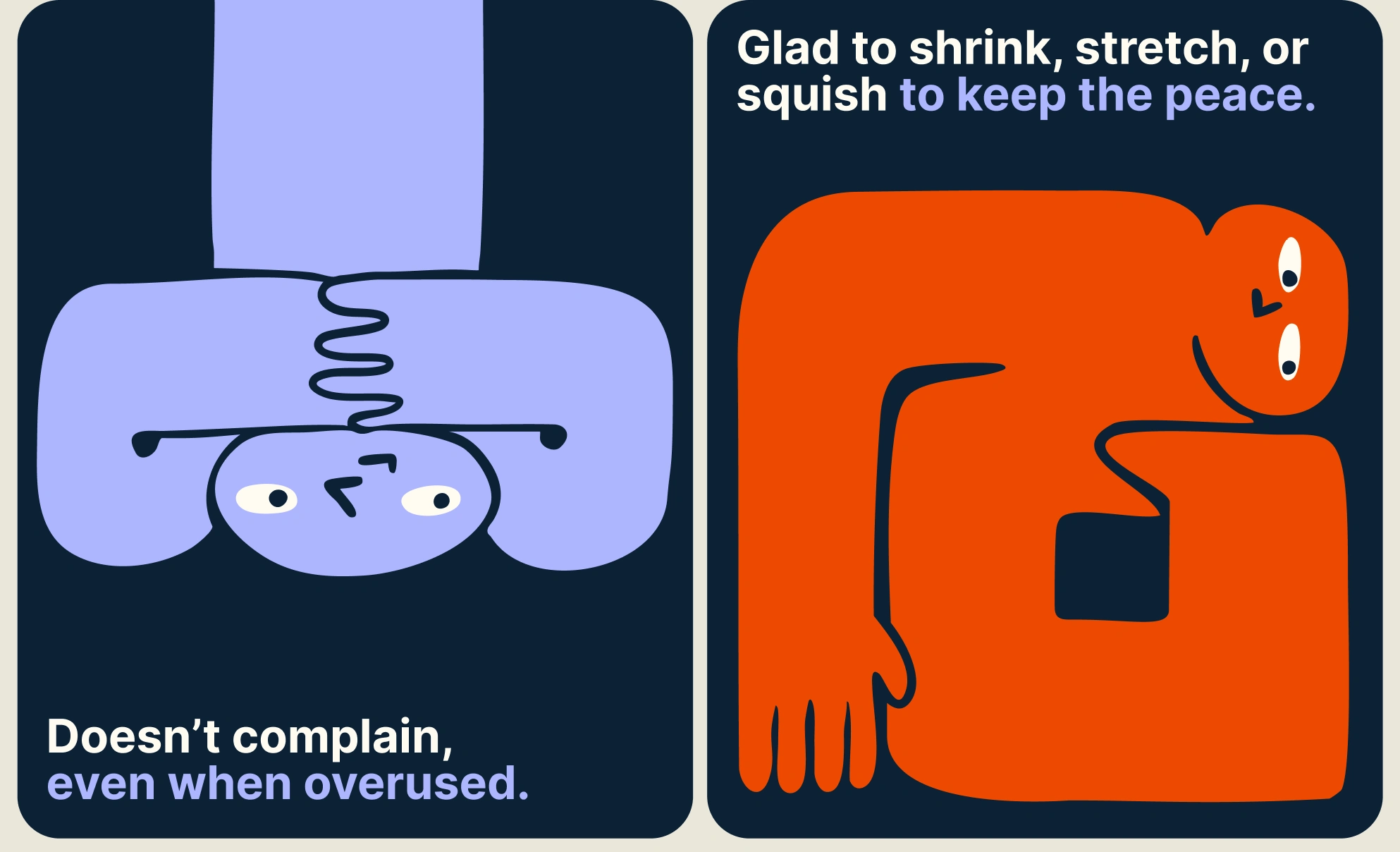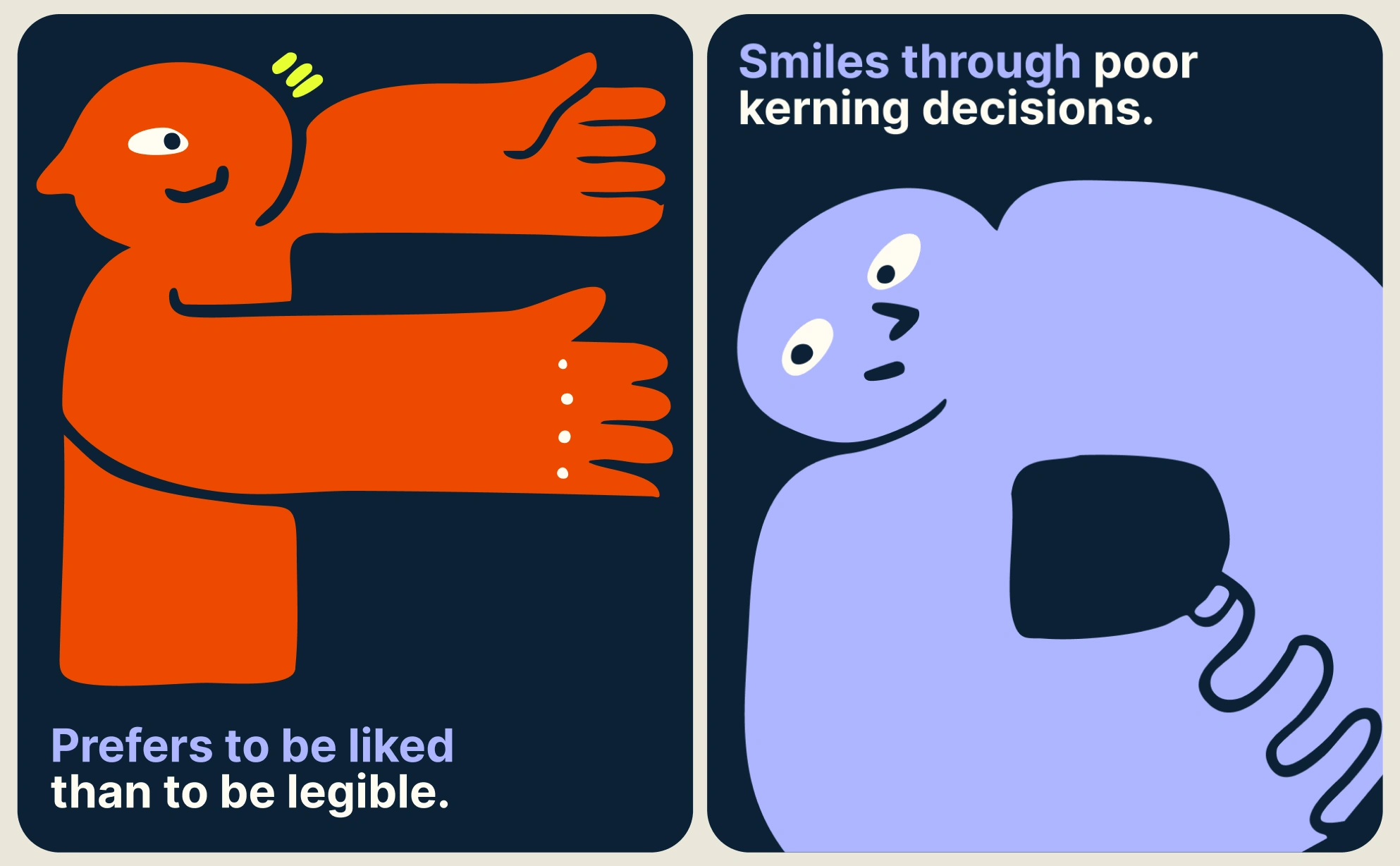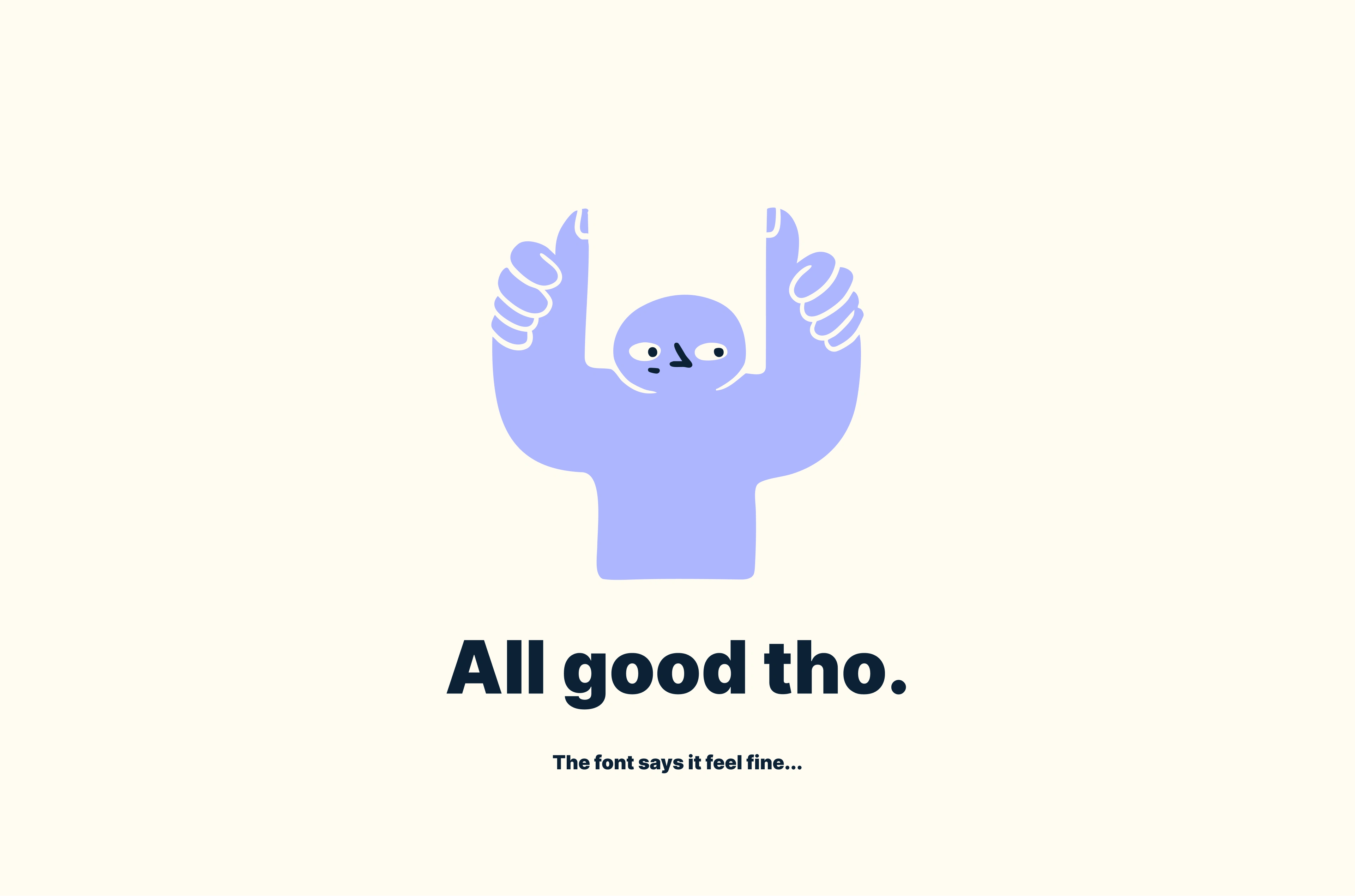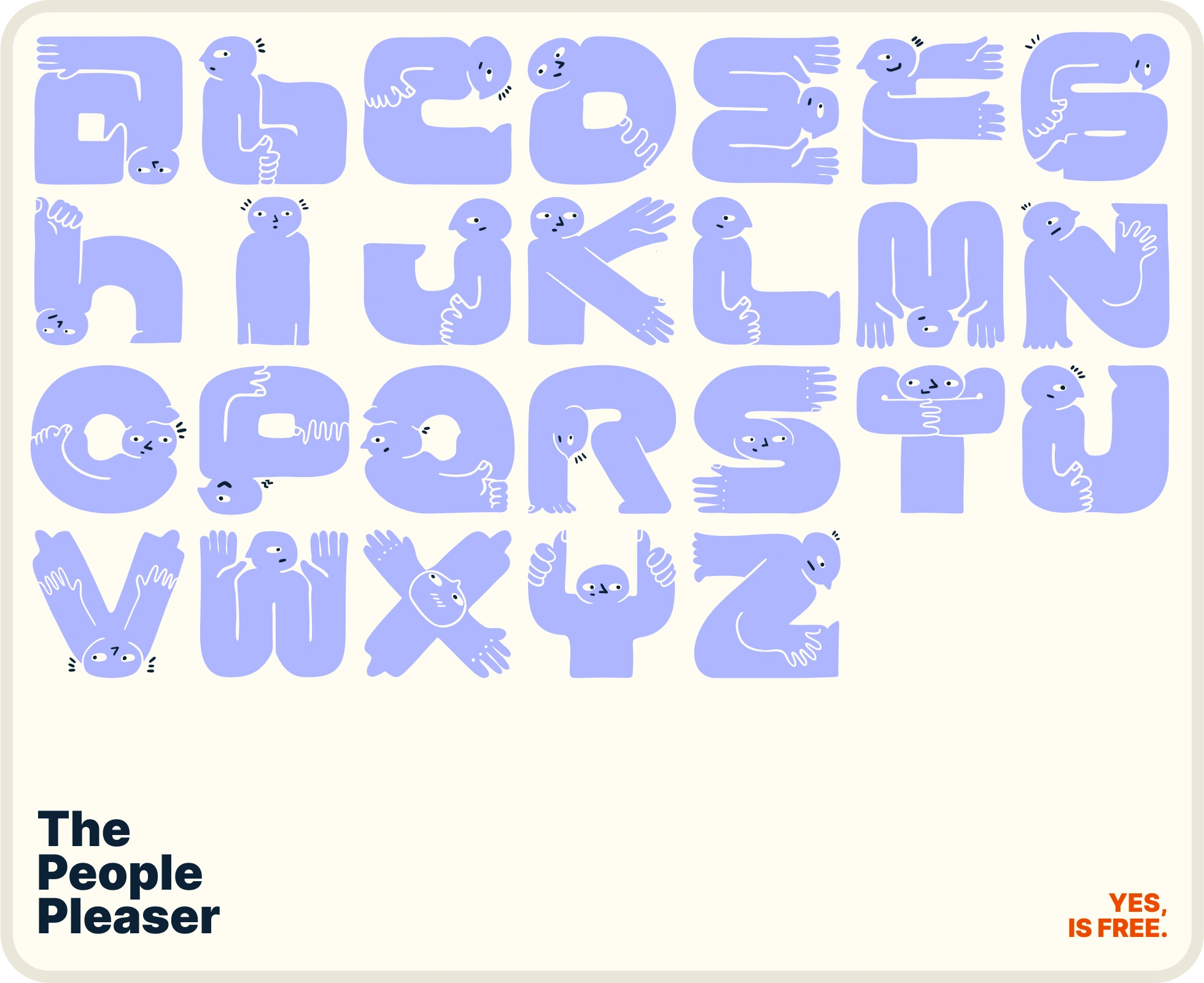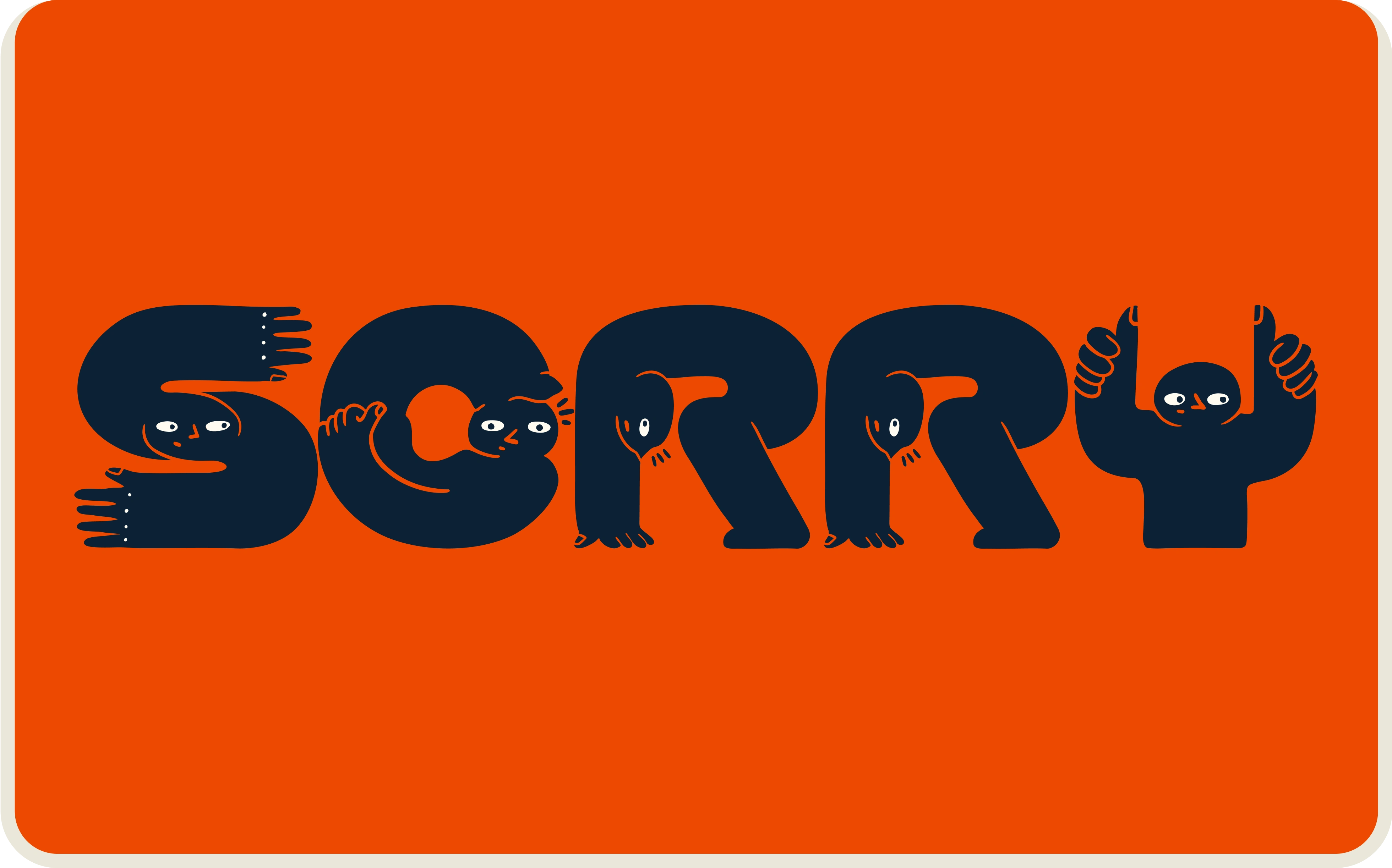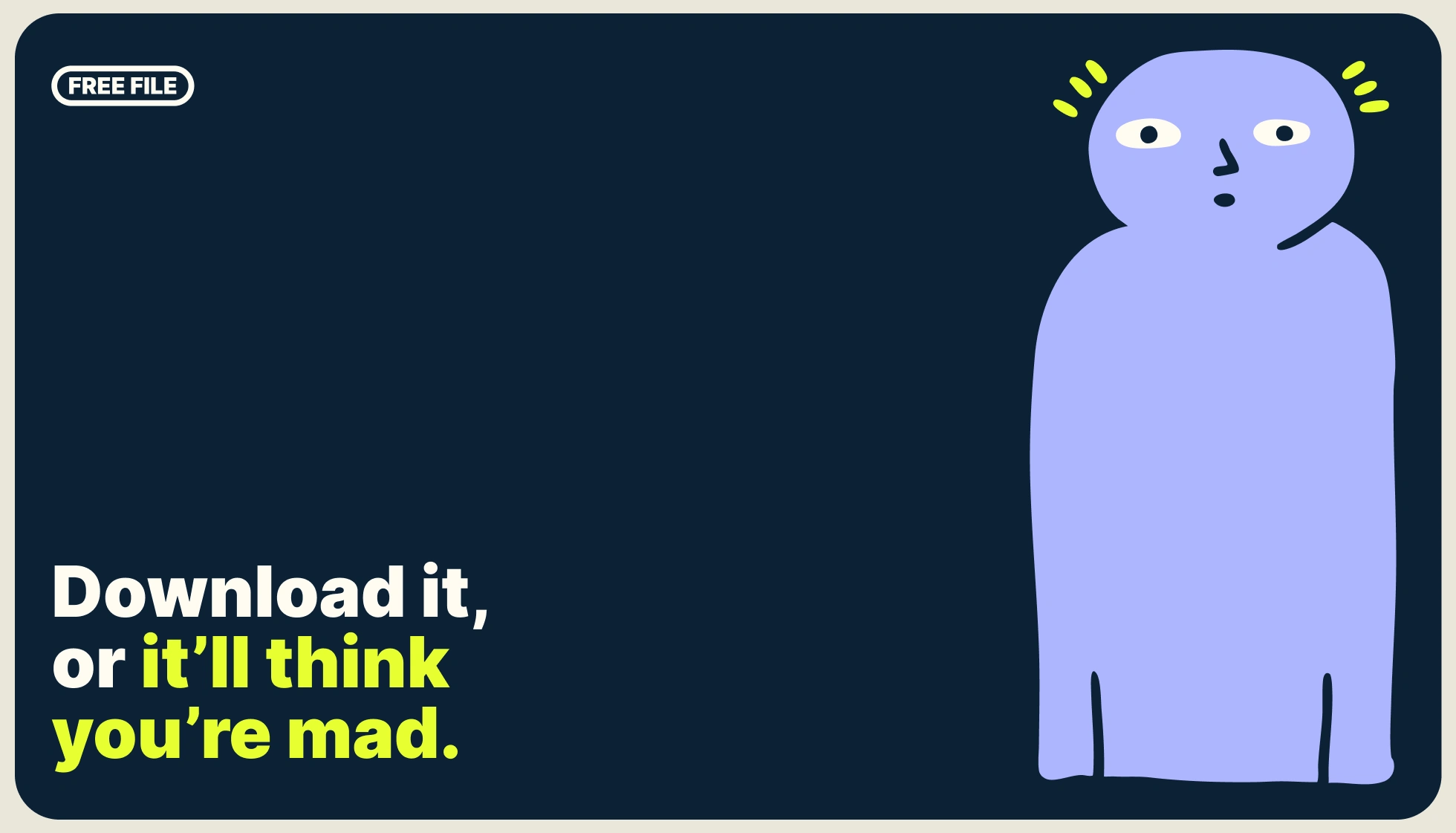
The People Pleaser Font [FREE]
The People Pleaser Font: A Twisted Tribute to Emotional Flexibility
In a world where burnout often leads to silence, Vic Rojo Studio chose to respond with a playful outburst of creativity. The People Pleaser Font is not just a typeface—it’s a visual diary of emotional exhaustion and quiet resilience, translated into illustrated letters that twist, bend, and contort in ways that feel all too familiar.
Born during a personal moment of overwhelm, the font reflects the deeply human impulse to keep saying “yes” even when what we really mean is “please help.” Rather than shutting down, Victoria Rojo turned her people-pleasing tendencies into something expressive, humorous, and raw. The result is a typeface that feels alive with emotion—each letter behaving like a character, trying its best to show up, look good, and be liked.
Some letters arch backward, others tie themselves into knots, and a few are just barely holding on. But they’re all trying. And in that effort, The People Pleaser becomes more than just a font—it’s a tribute to emotional flexibility and the invisible labor of those who stretch themselves for the comfort of others.
More than anything, this project offers both a wink and a whisper: a reminder that it’s okay to be weird, honest, and imperfect. It’s okay to take up space. To say no. And maybe, most importantly, to laugh at the absurdity of trying to please everyone all the time.
The People Pleaser Font is a raw, playful response to burnout—a typeface born from emotional exhaustion, where every letter bends to be liked.